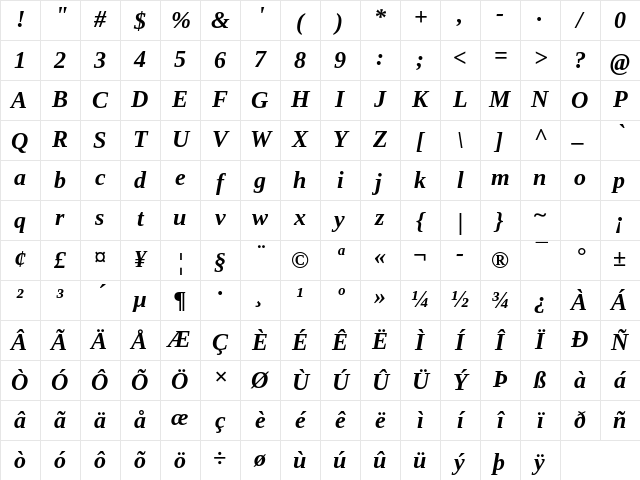
Complete LiterationSerif NF Bold Italic glyph index. Displaying only characters natively supported by LiterationSerif NF Bold Italic font.
LiterationSerif NF carries the refined structure of traditional serif typography, with bracketed terminals and considered proportions that communicate credibility and craft. The slanted form adds forward momentum and visual energy. Its bold stroke weight gives it real presence on the page.
Pro Tip: Use LiterationSerif NF for editorial body copy and considered headline work. Pair with a neutral sans for UI elements or captions to create a classic hierarchy.